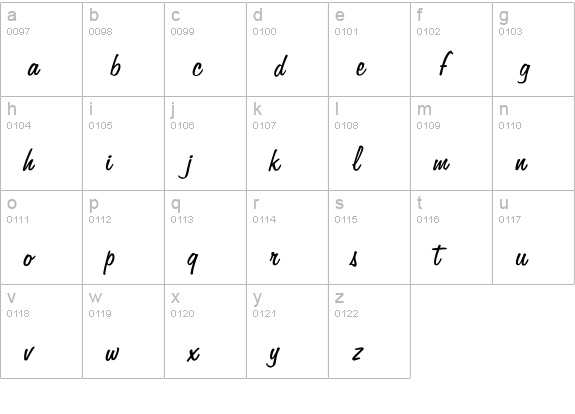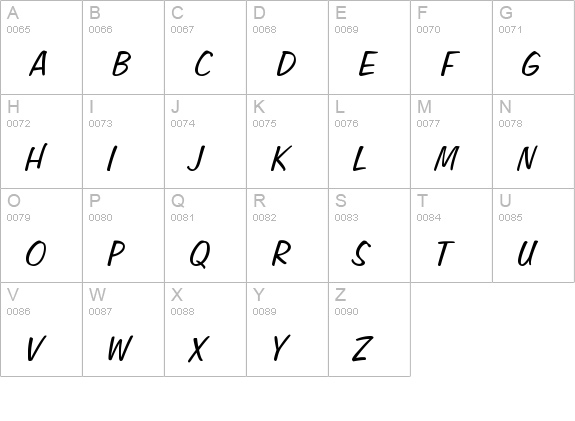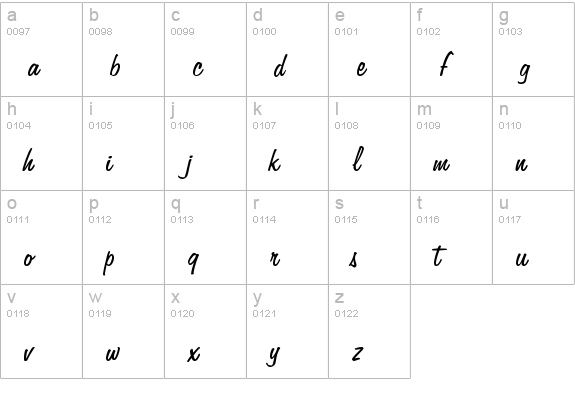
Slowsanders Font Details
Slowsanders font is a stunning and versatile typeface that effortlessly combines elegance and modernity. Its graceful curves and refined details make it a perfect choice for a wide range of design projects, from branding and logos to invitations and packaging. This font possesses a unique charm that captivates the eye and adds a touch of sophistication to any design. Its carefully crafted letterforms are imbued with a sense of timelessness, making Slowsanders font an excellent choice for both classic and contemporary design styles. One of the most enticing features of Slowsanders font is that it is available for free. Yes, you heard it right – this exquisite font can be downloaded without any charge at FontsMarket.com. Its creators believe in the power of sharing creativity and making high-quality resources accessible to everyone. Whether you are a professional designer or a passionate enthusiast, Slowsanders font offers you a world of possibilities. With its extensive character set and multiple OpenType features, you can effortlessly create stunning typography that stands out from the crowd. Slowsanders font is designed with meticulous attention to detail, ensuring that every letter flows harmoniously into the next, creating a seamless and visually pleasing reading experience. Its legibility is exceptional, making it suitable for a wide range of applications, including body text, headlines, and captions. With Slowsanders font, you can bring your design visions to life, making a lasting impression on your audience. Its versatility and elegance make it a perfect choice for various projects, from print to digital media. No matter the context, Slowsanders font will deliver an exceptional visual experience. So why wait? Don't miss out on the opportunity to enhance your designs with the beauty and sophistication of Slowsanders font. Head over to FontsMarket.com and download this remarkable typeface for free. Unleash your creativity and let Slowsanders font elevate your designs to new heights.